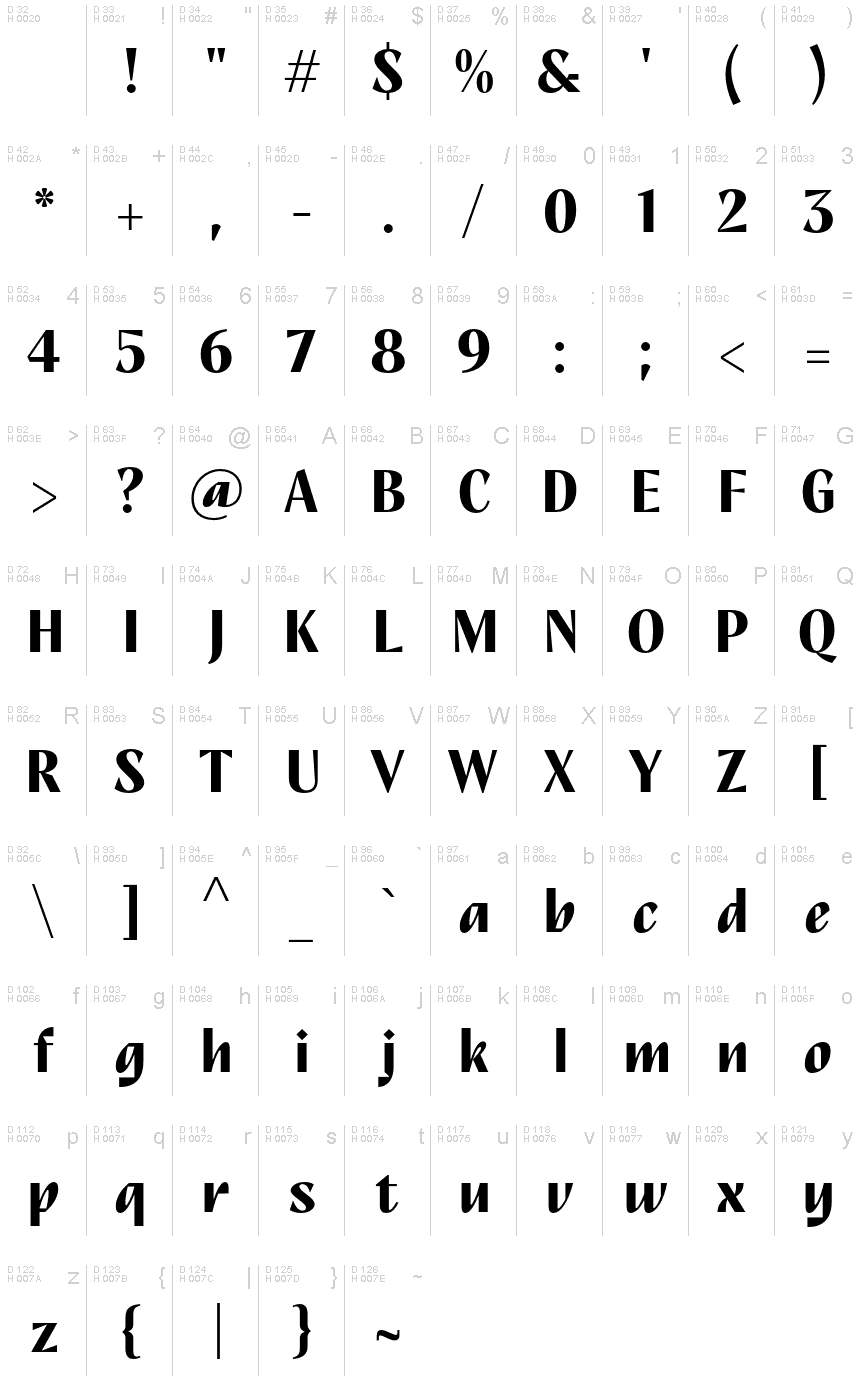
TT Nooks Script Bold is a stunning typeface that exudes elegance and sophistication. Created by TypeType Foundry, this bold font is perfect for projects that require a touch of class and refinement. Its flowing script style adds a personal touch to anything from wedding invitations to product packaging. The bold weight makes it ideal for attention-grabbing headlines or signage, while the soft curves and delicate strokes make it equally suited for body text in editorial designs. Whatever your project may be, TT Nooks Script Bold will elevate it to the next level with its unique charm and versatility.
Presentazione e campione visivo del carattere TT Nooks Script Trial Bold
TT Nooks Script Trial